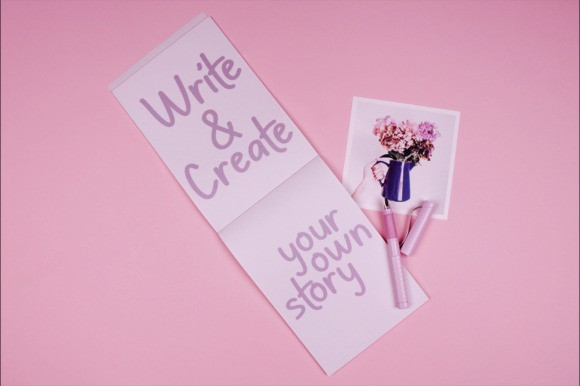
Fresh Juice Handcrafted Font
Fresh Juice is a display handwritten font with monoline style, inspired from fresh food and snacks packaging. This simple handwritten font that can be used for all printed writing materials, product designs, social media. Its appearance will add a creative and realistic impression to any of your products that require a classic style
Fresh Juice Font includes full set of Uppercase and Lowercase Basic Characters, Numerals and Punctuation. This font also has additional characters that will blow your mind!